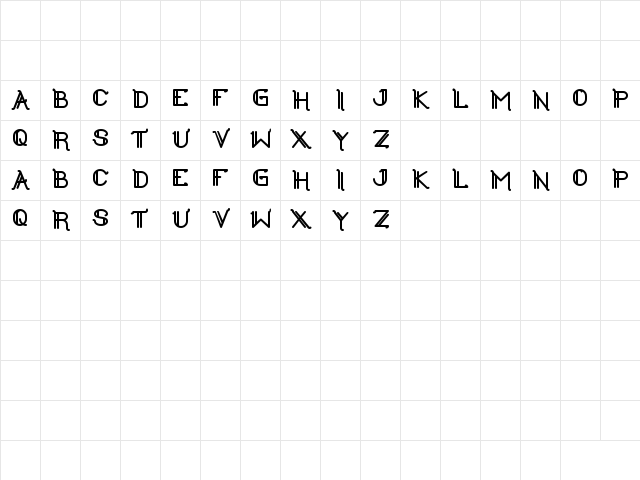
the greatest high Regular
Design Context for the greatest high Typeface
the greatest high is a composed and adaptable typeface that performs quietly and consistently across a wide range of design contexts.